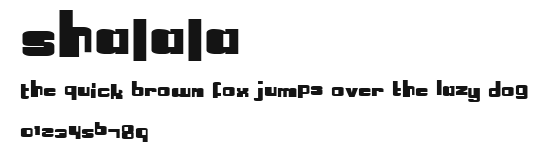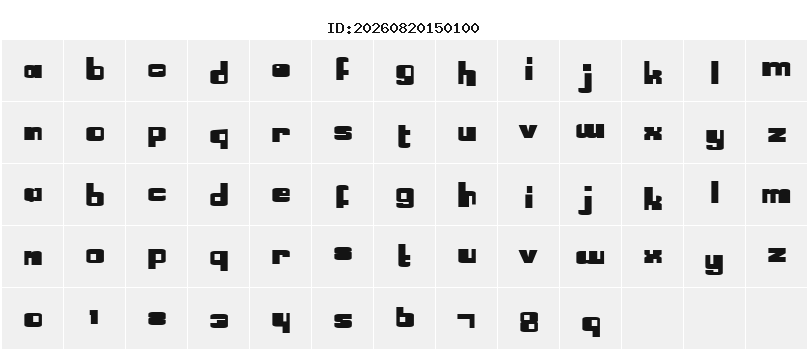
ShaLaLa Preview
• Font Name: ShaLaLa
• Full Font Name: ShaLaLa
• PostScript Name: ShaLaLa
About ShaLaLa.ttf
ShaLaLa.ttf is a modern, elegant sans-serif font designed for ultimate readability and visual harmony. Perfect for branding, headlines, web design, and print materials.